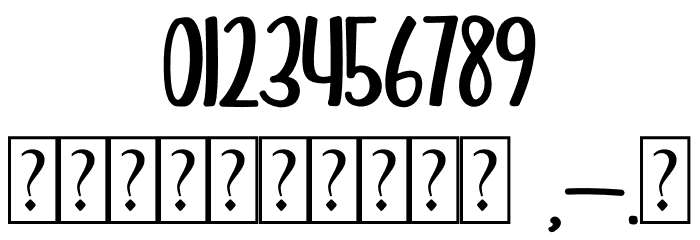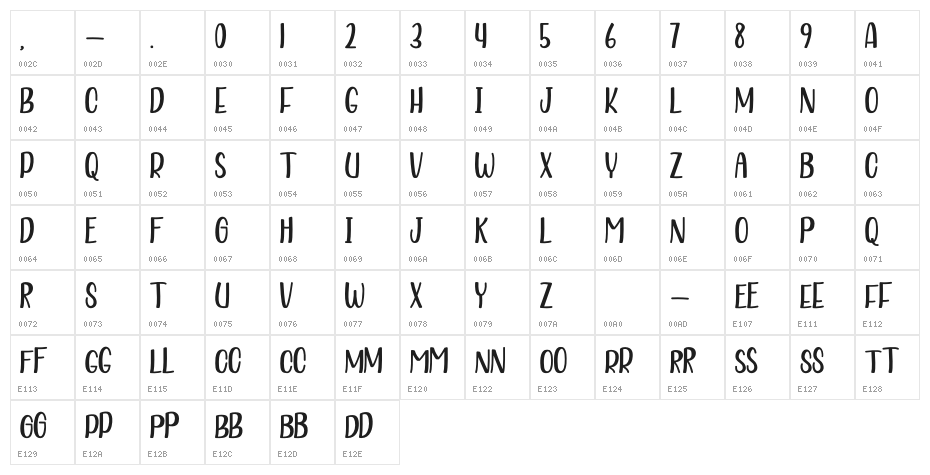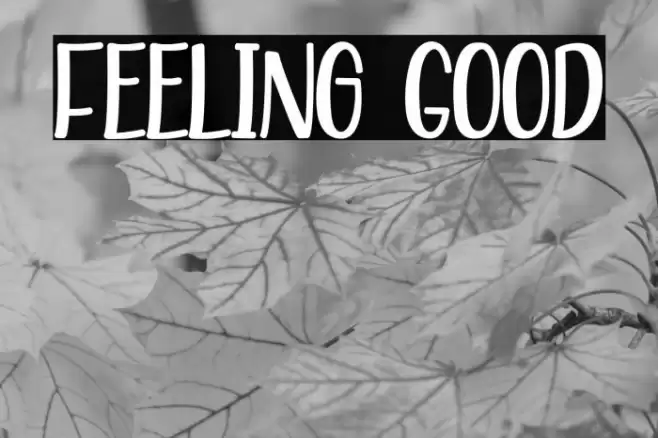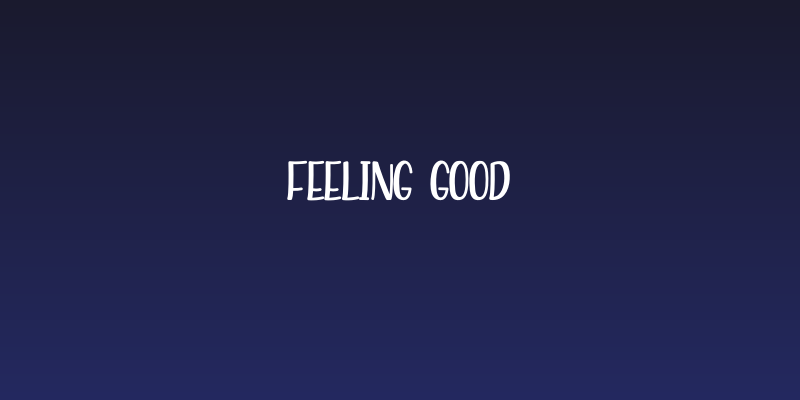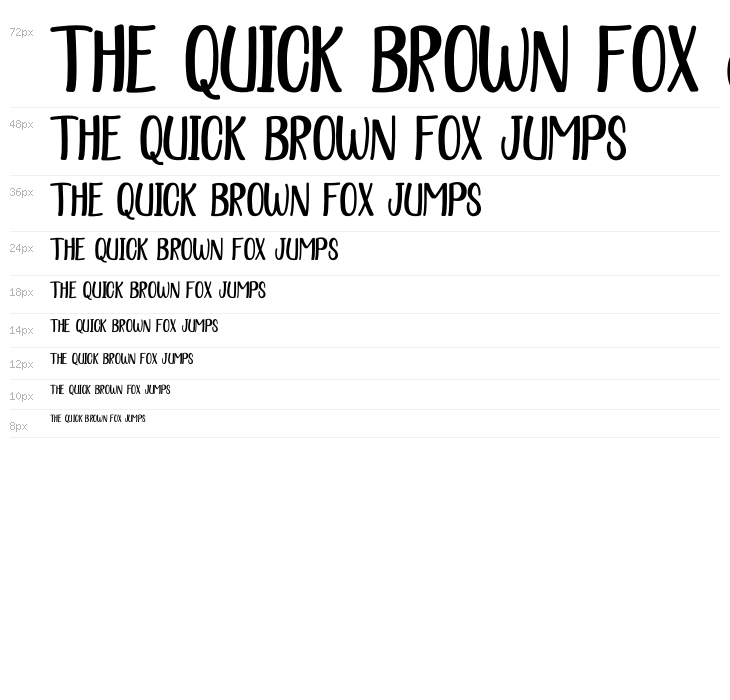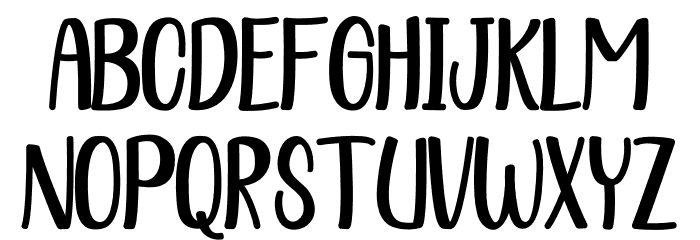
Feeling Good Font
Feeling Good Description
This font features a playful and energetic style with a handwritten appearance. The letters are bold and slightly condensed, giving a lively and informal feel. The strokes are smooth and rounded, with a consistent thickness that adds to its approachable character. The uppercase and lowercase letters maintain a cohesive look, while the numerals and special characters complement the overall design. This font is perfect for projects that require a friendly and casual touch.